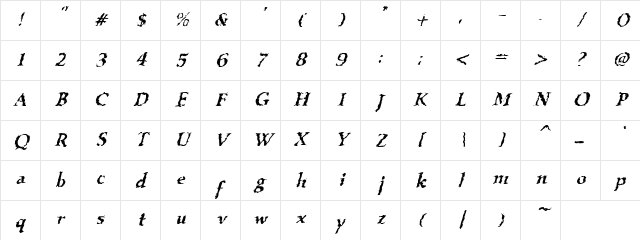
VTC Boseephus is a composed and adaptable typeface that performs quietly and consistently across a wide range of design contexts. The slanted form adds forward momentum and visual energy.
Pro Tip: Use VTC Boseephus for emphasis, pull quotes, and subheadings where its slanted energy can add rhythm to the layout.